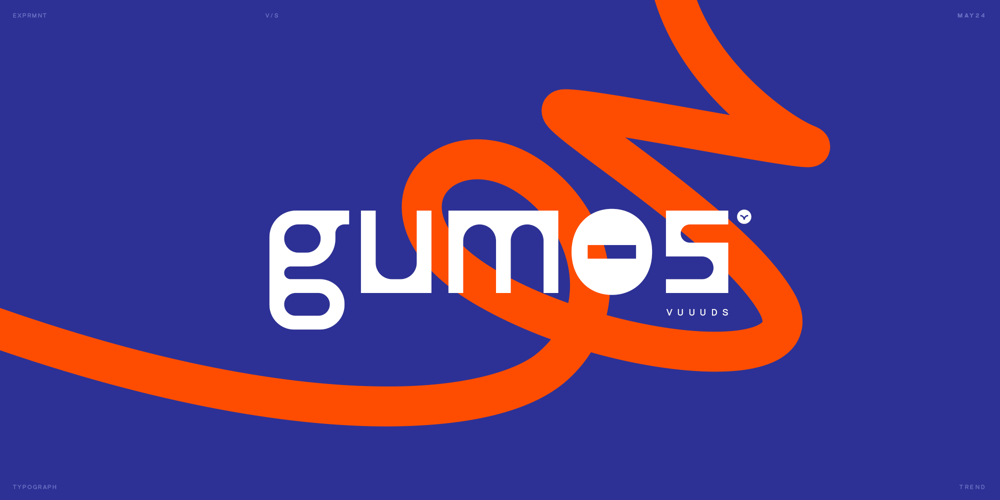
Gumos
Gumos font
Gumos Font Family was designed by Agung Syaifudin and published by vuuuds. Gumos contains 1 styles and family package options. Introducing Gumos Font!Gumos is modern experimental sans serif font, every single letters have been uniquely crafted.This font including beautiful alternate glyph. You can access the alternate glyph via Font Book (Mac user) or Windows Character Map (Windows user), I’ve been put the link tutorial inside the zip file.Foreign languages support: ÀÁÂÃÄÅÆÇÈÉÊËÌÍÎÏÐÑÒÓÔÕÖØÙÚÛÜÝàáâãäåæçèéêëìíîïðñòóôõöøùúûüýÿ߀£¥ŒŠŸ¢œšž©®™instagram.com/vuuuds.studio